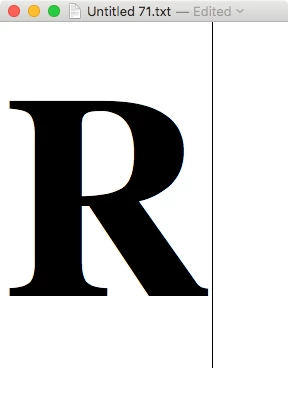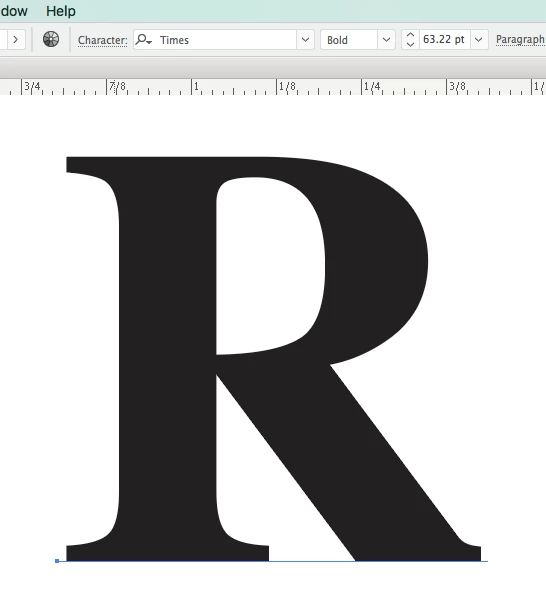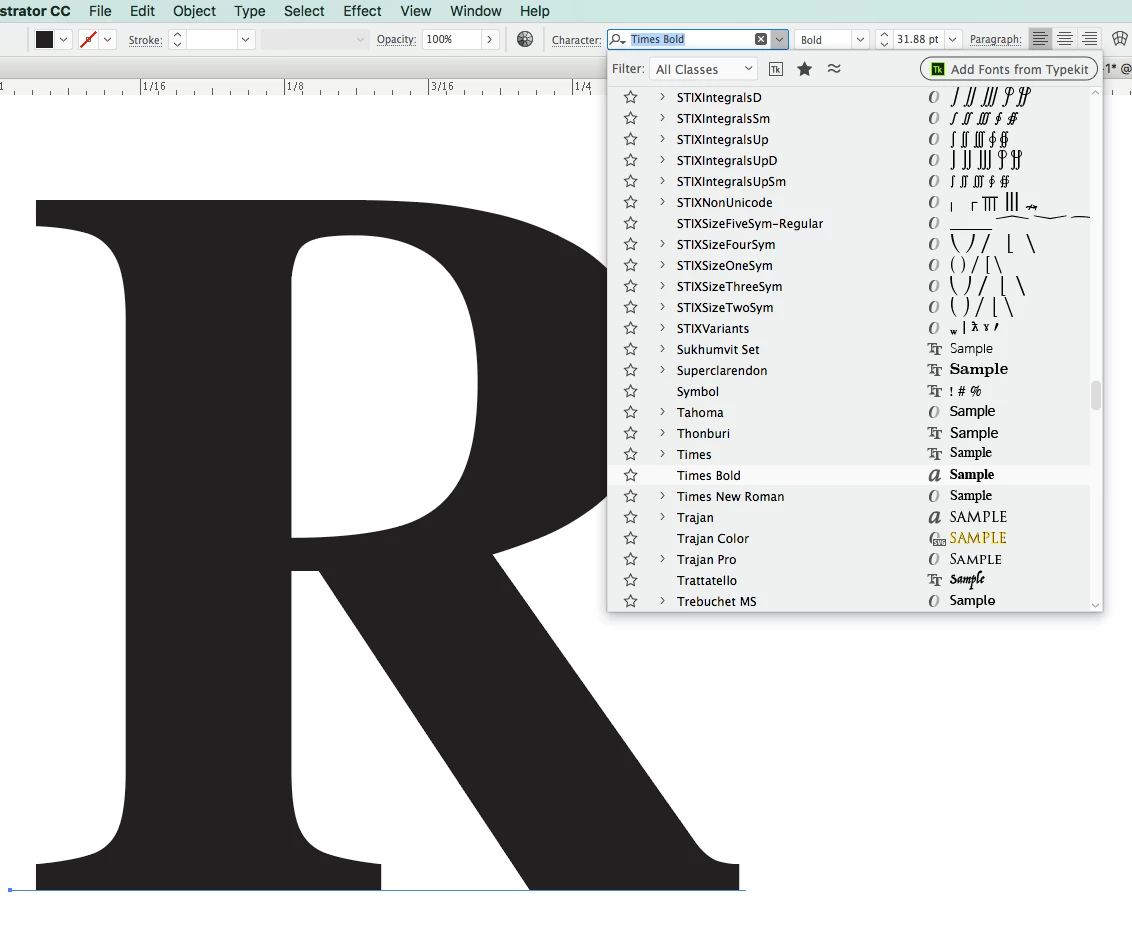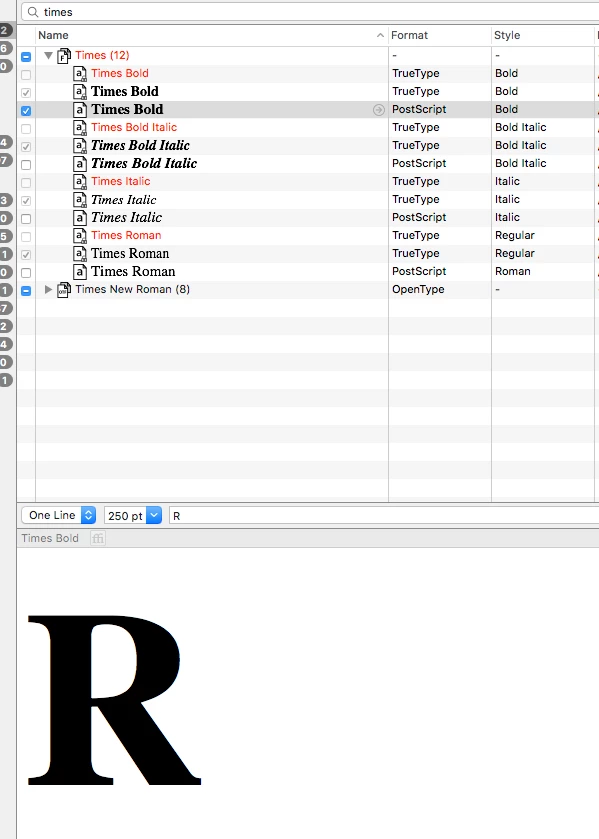
Times Roman Bold font design different in Illustrator
On all of our Macs, when we look at the font design "R" in Illustrator with Times Roman Bold, the gap closes in as you can see in these screenshots below.
Wondering if others are seeing this too. Aside from creating outlines in other apps and bringing it into Illustrator, I'm wondering if there is a way to make Illustrator read the fonts properly. Any suggestions much appreciated.
Text Edit:
FontExplorer:
Adobe Illustrator CC 22.0.1:
Looks like this.
Are you sure you selected the same TNR?
Thanks Monika. That to me looks like Times New Roman based on the longer narrower serif. I'm actually trying to get the regular Times Bold to work. It's very odd that Fontbook, Font Explorer and non-CC apps can see it properly. I notice Photoshop does the same as Illustrator. (Edit: Sorry, I realized I should have removed "Roman" from the question )
Times Bold
Times New Roman Bold
Update:
By forcing the postscript version of Times Bold to activate via Font Explorer, the true font design now works in Illustrator.
I still find it strange why Adobe Illustrator can't render the Mac OS Times.dfont properly when others can. Is this a localized issue or are other .dfont or other fonts not rendering properly? (at first glance, I don't think anyone would question the R looking odd in a sentence. It was just a curiosity that lead to finding this inconsistent font issue... Just curious now if any other fonts have this issue.
(note this has been consistent on 2 other macs in our office all having the same issue with the Mac's system times.dfont - PS: not that I'm advocating people to start using Times font, but just found this interesting...)